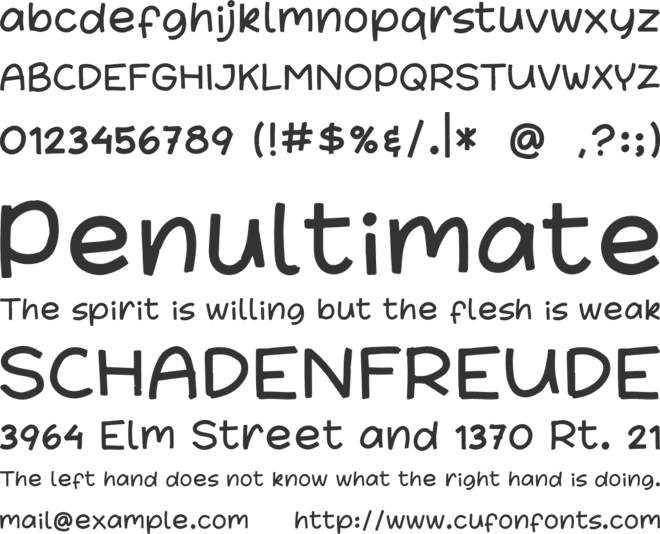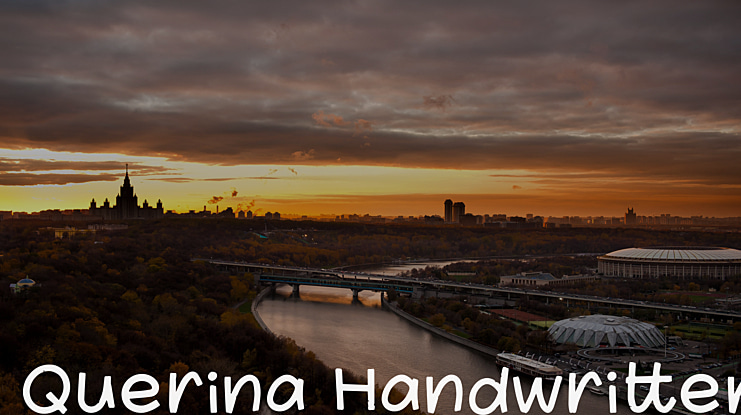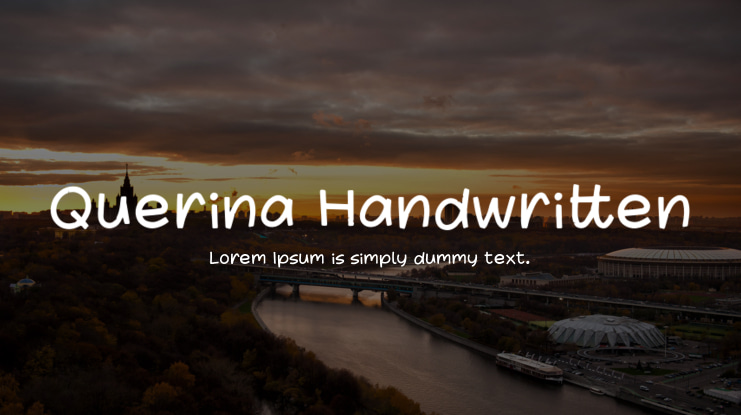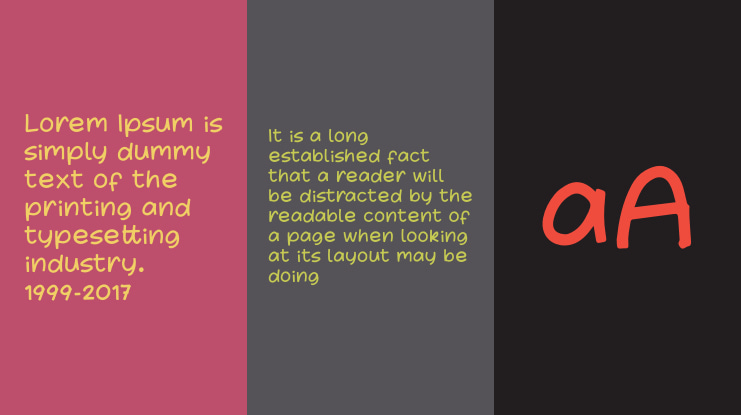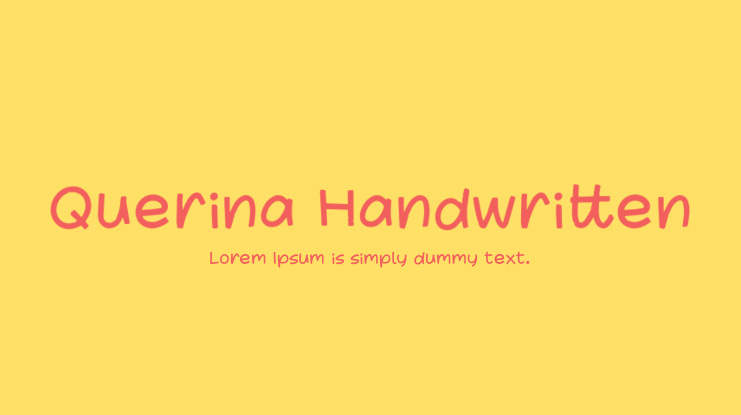
Querina Handwritten Font
Introducing Querina a Handwritten Font with a sweet, simple style, and suitable for many of your needs. From writing nice notes, cute logos, cool posters & merchandise, greeting cards, this simple handwriting font will instantly become your fave!
Check the previews, and you'll see how flexible this font can be. Look attractive for displays, neat and fun for paragraphs, and still have a strong character for posters and logos.
Querina Handwritten font preview